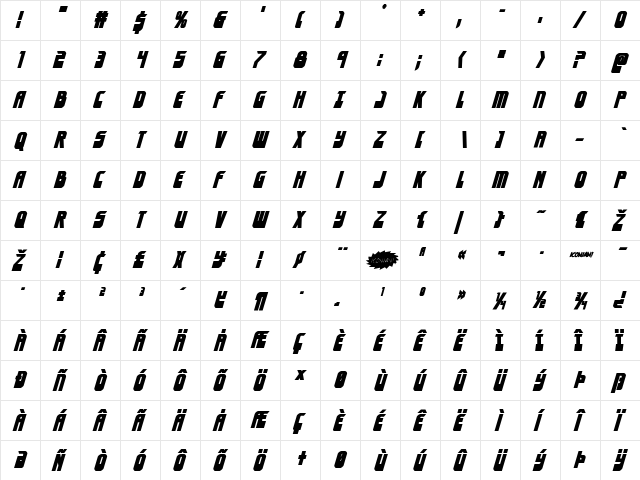
Eldebaran Bold Italic Bold Italic
Design Context for Eldebaran Bold Italic Typeface
Eldebaran Bold Italic offers clean, dependable letterforms without strong stylistic allegiance, making it a practical choice for designers who need flexibility. The dynamic lean of this cut emphasises speed and emphasis in any layout. Its bold stroke weight gives it real presence on the page.